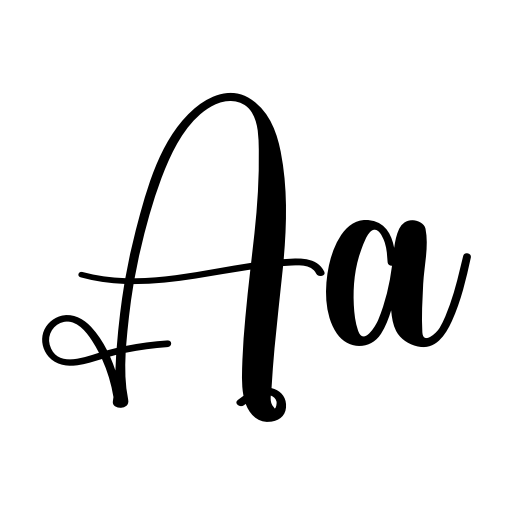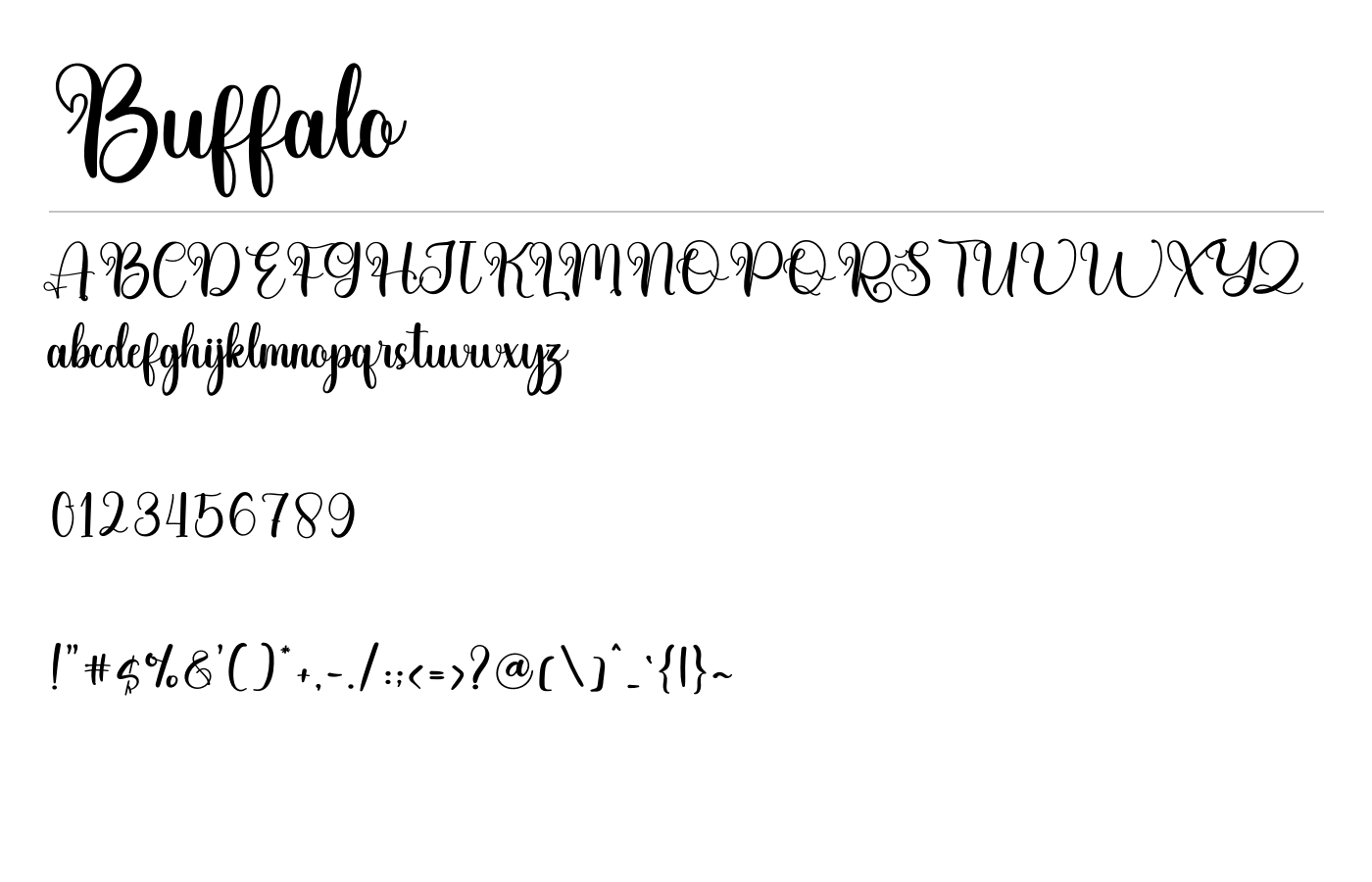
Buffalo is an elegant, flowing script font with a playful yet sophisticated charm, featuring graceful swashes and delicate curls that enhance its stylish personality. Its moderately high contrast and smooth strokes make it ideal for feminine branding, invitations, and headlines that need a touch of warmth and creativity. This font works best in designs that aim to convey elegance and friendliness, such as luxury products, wedding materials, and boutique packaging.
Buffalo Font